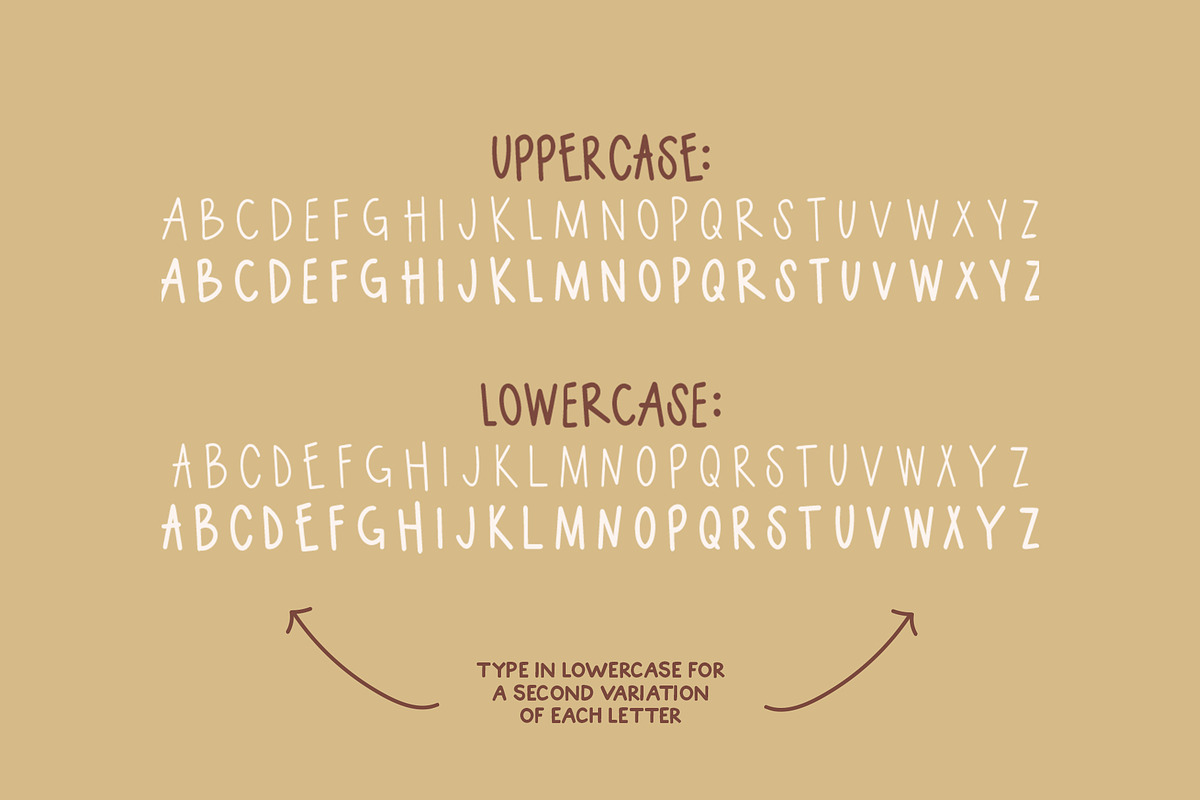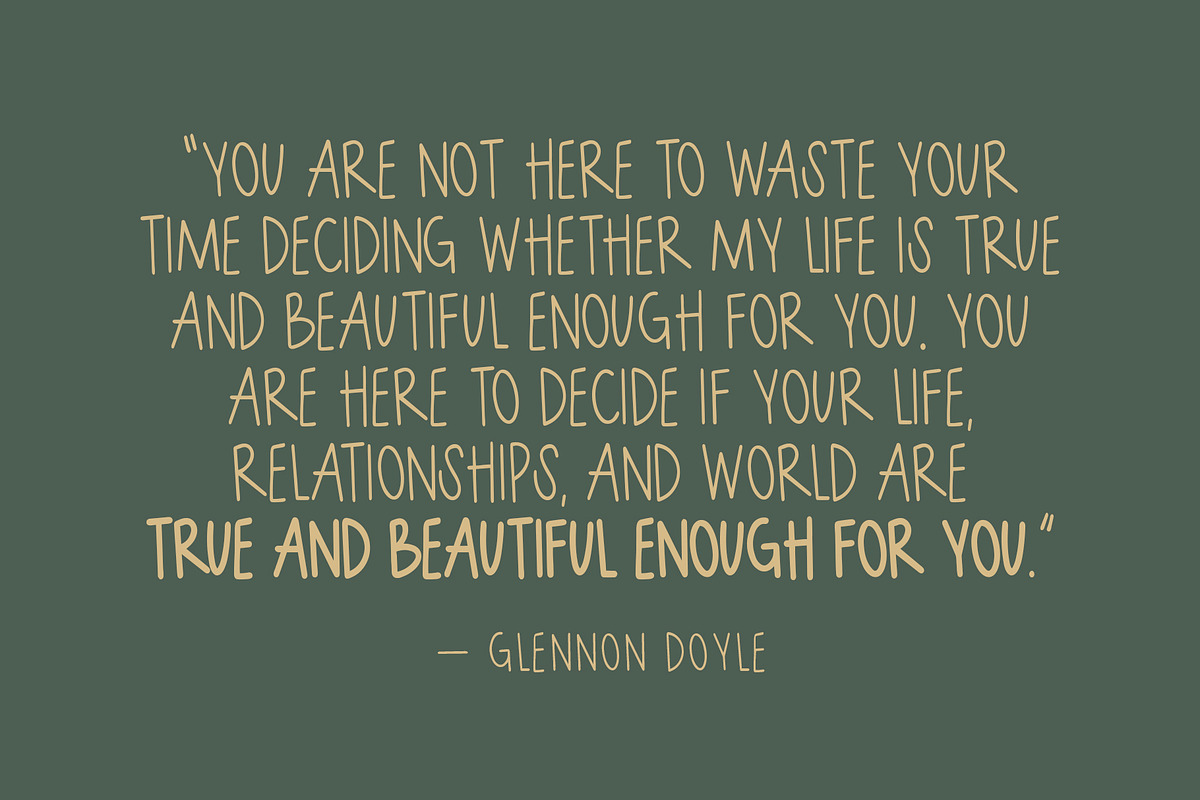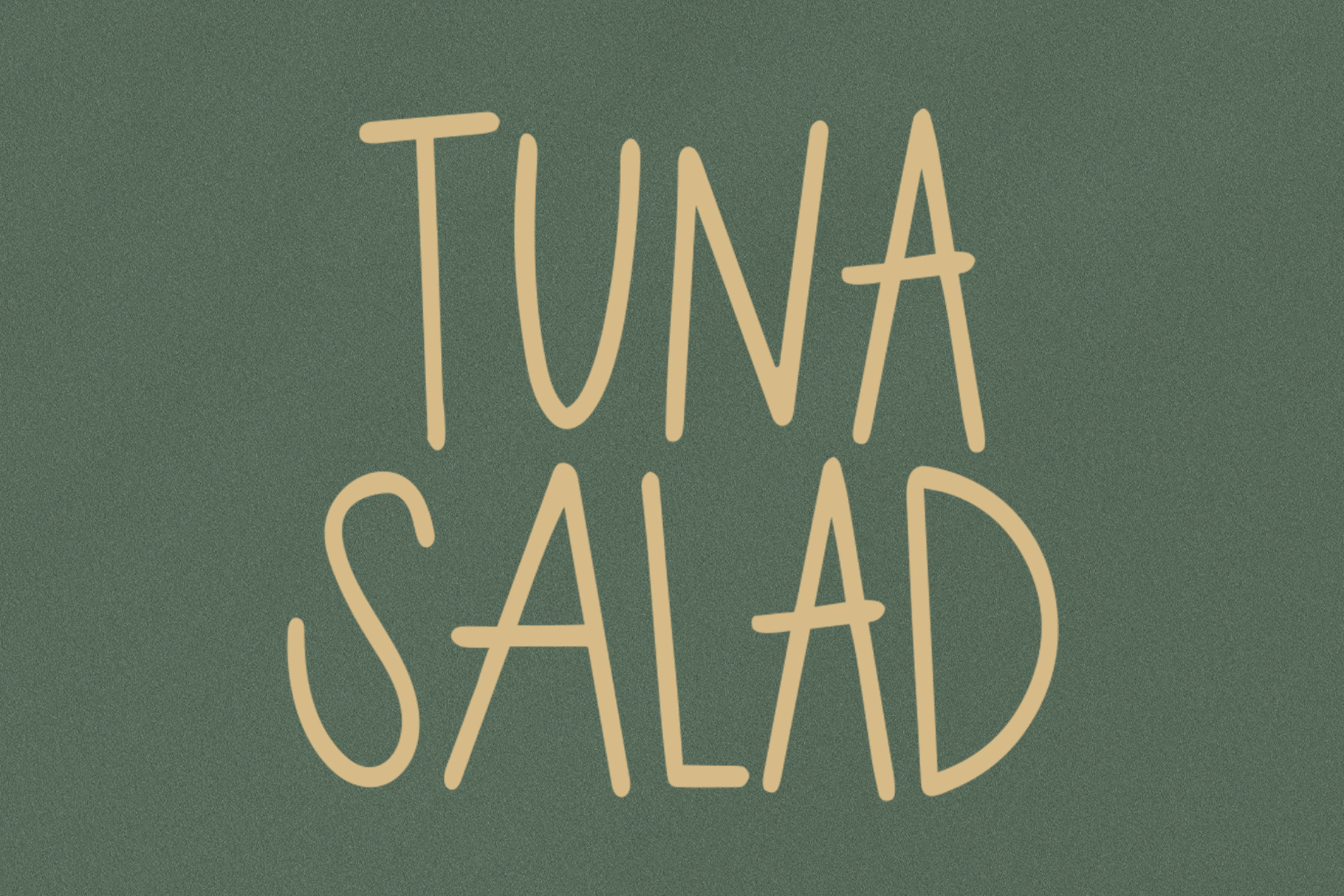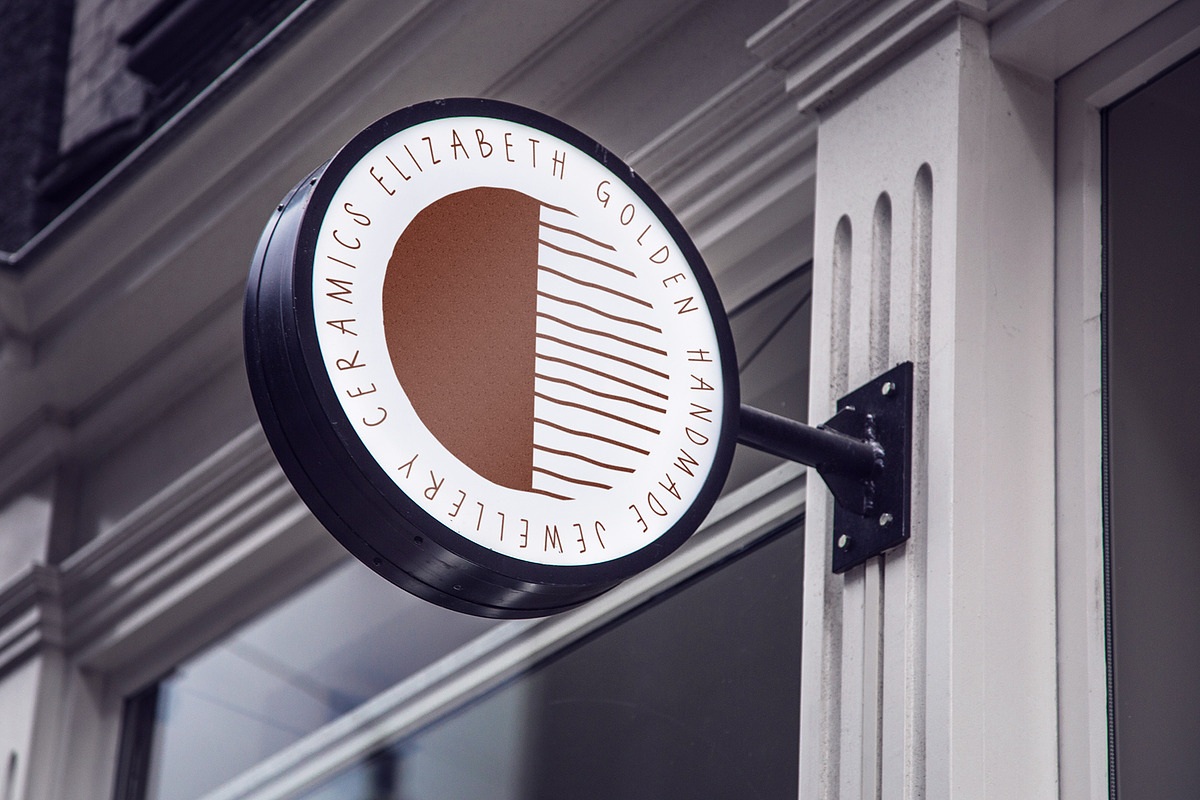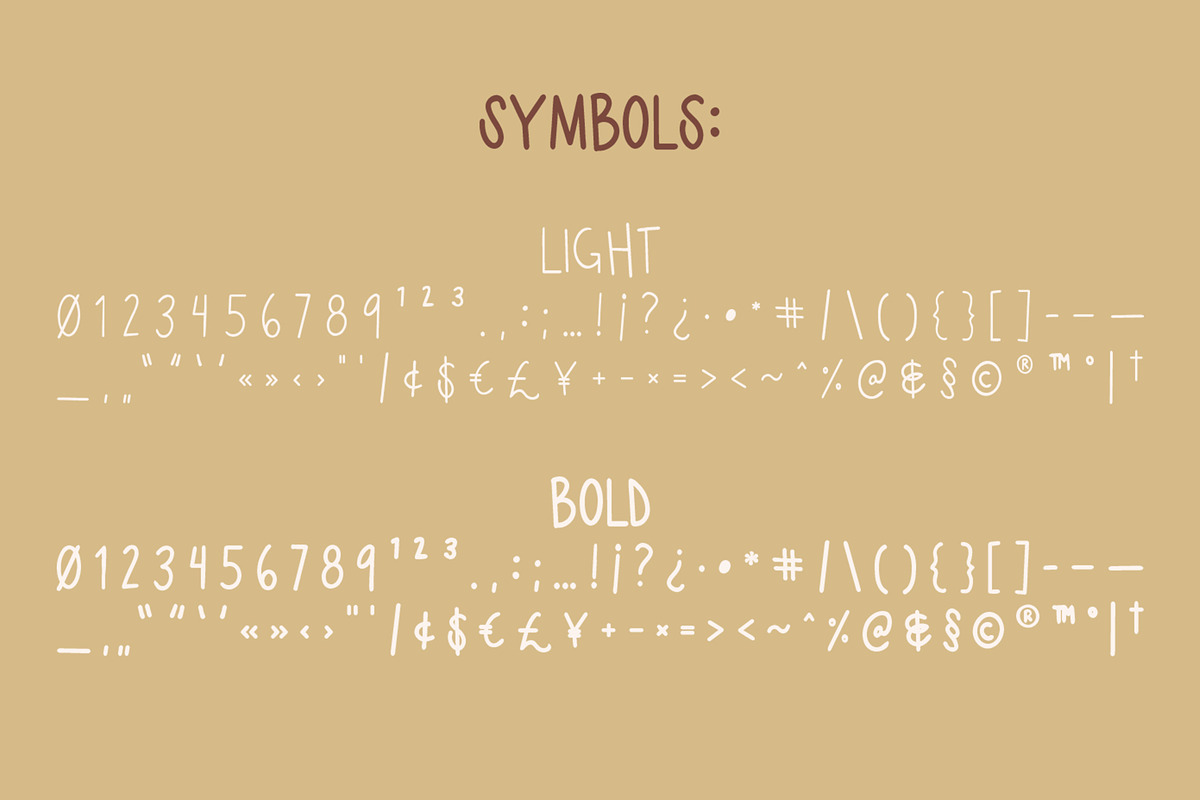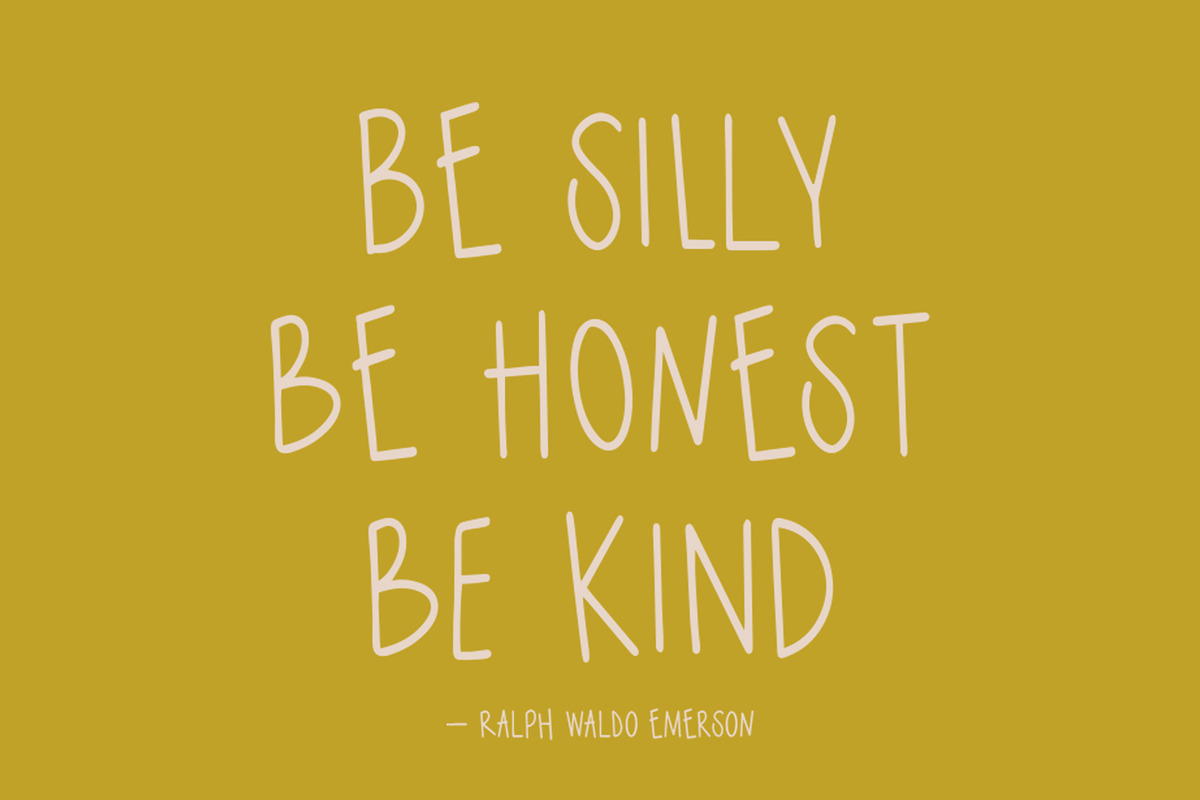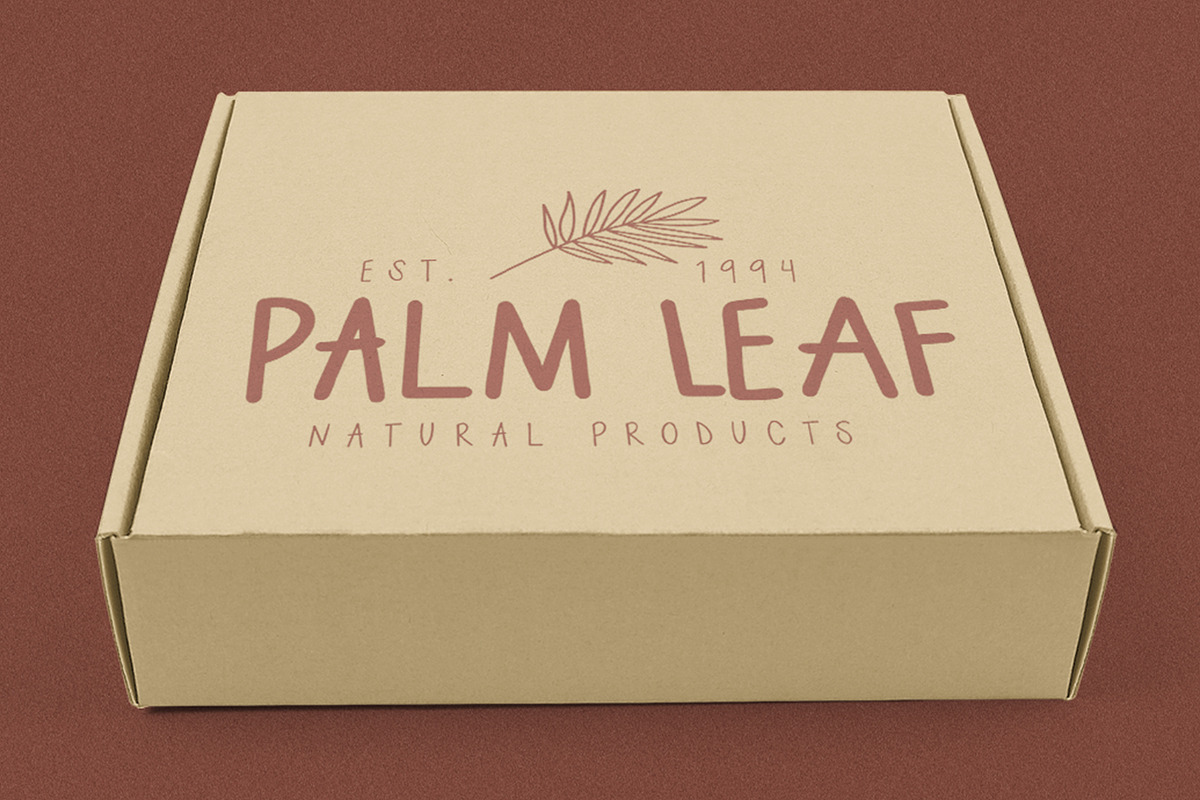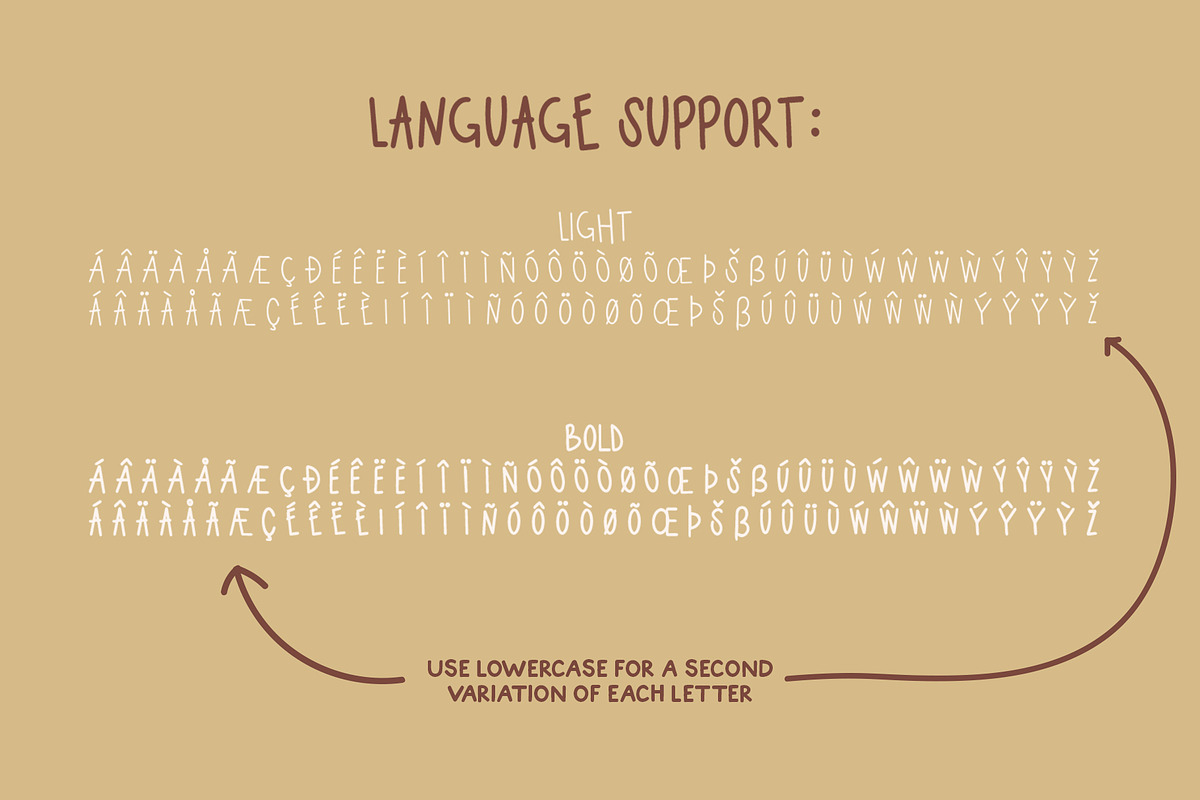
Tuna Salad | Quotable Kids Font
Tuna Salad is a handcrafted, multi-weight, all-caps font with a playful, authentic feel. Type in lowercase to explore alternate characters for each letter!
Perfect for: teachers and parents, logos, branding, greeting cards, posters, quotes, magazines, social media, planners, shirts, prints, and more.
26 alternate characters to give a unique touch to each word (simply type in lowercase vs. uppercase to access them)
Numbers + punctuation
Multilingual accents + characters